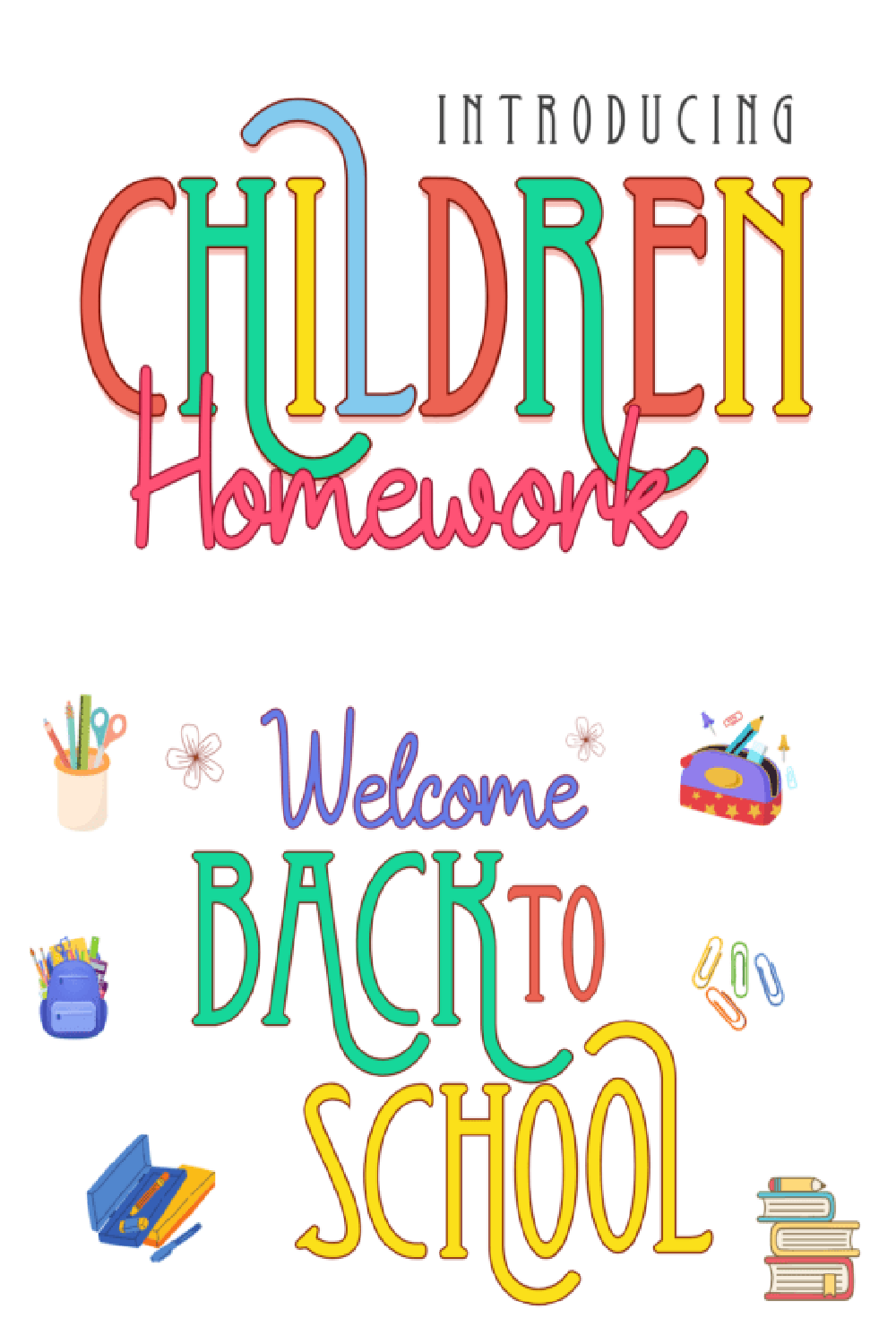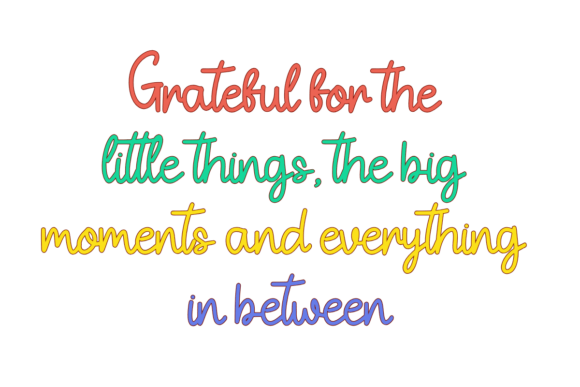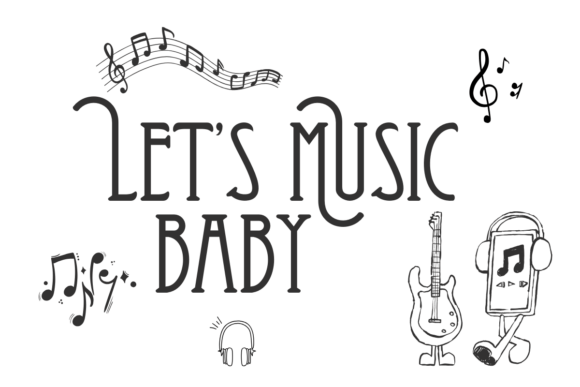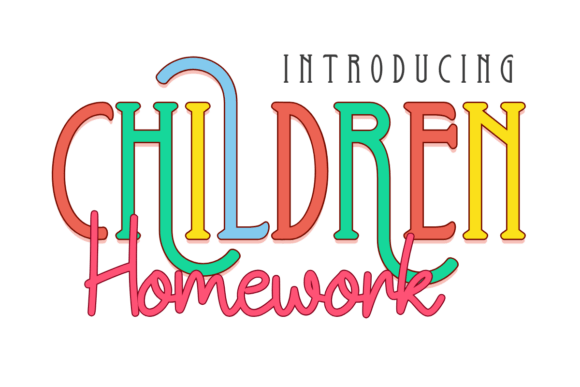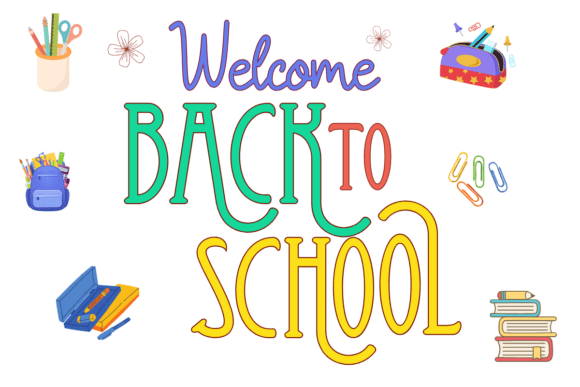
Children Homework Font
About the Children Homework Font
Discover the charm of Children Homework Font. This font is a perfect blend of modern aesthetics and classic appeal. Children Homework is a fun and friendly font duo featuring a colorful playful slab serif and a cute handwritten script. Perfect for kids-themed designs, from classroom printables to posters, books, crafts,back to school and more. A must-have for teachers, moms, and crafters who want joyful, creative vibes!